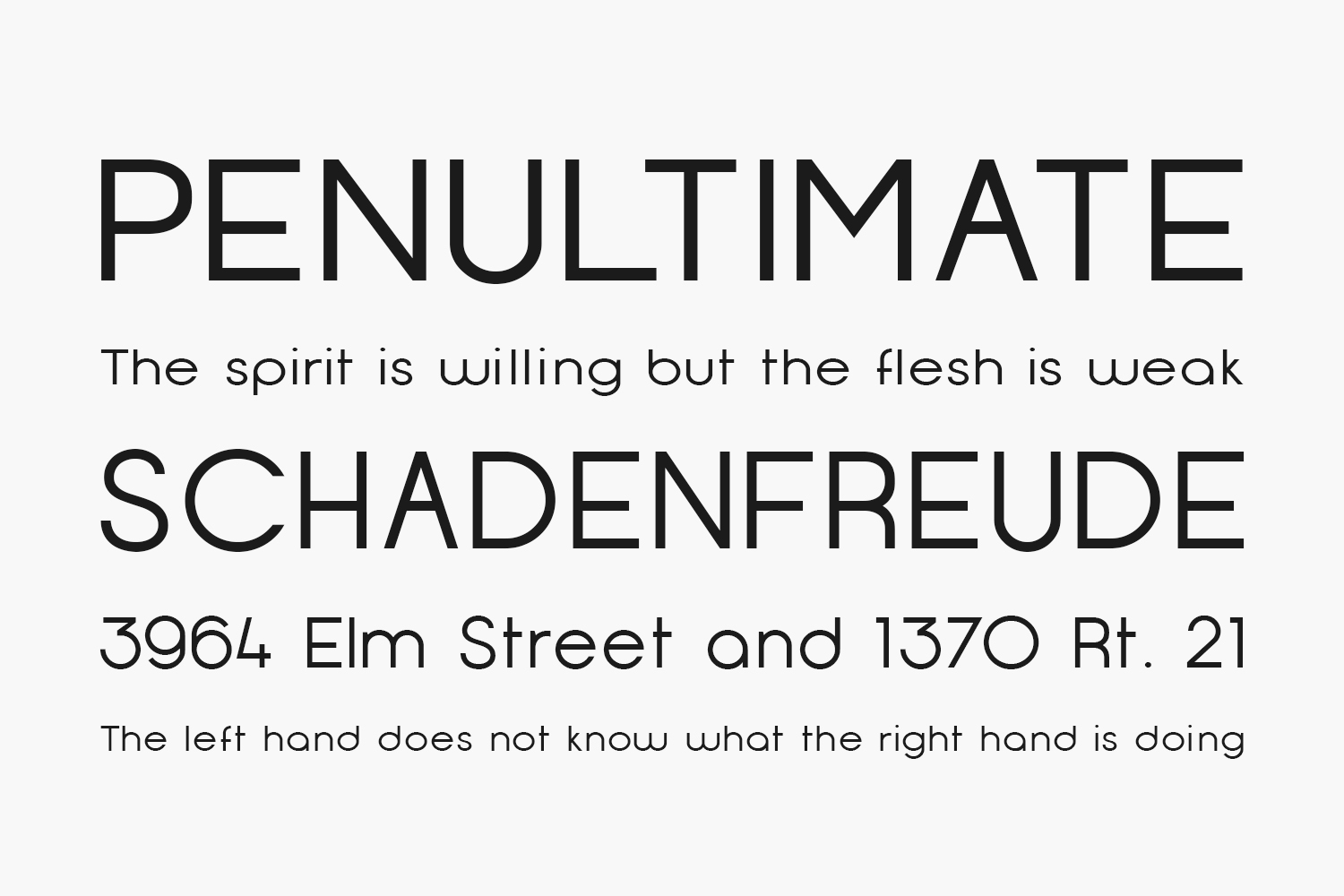
Opificio Neue Free Font is a basic sans serif font, ideal for writing even in small sizes. Opificio Neue has all the characters: European, Cyrillic, Greek, and Turkish. This font is for personal use only. Please purchase the full version for commercial use.